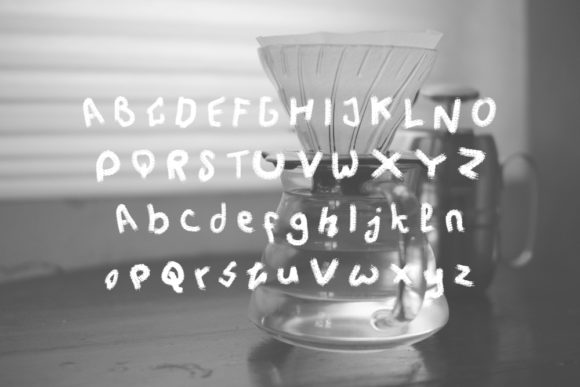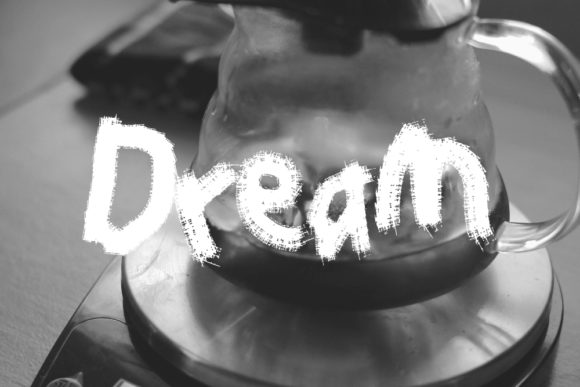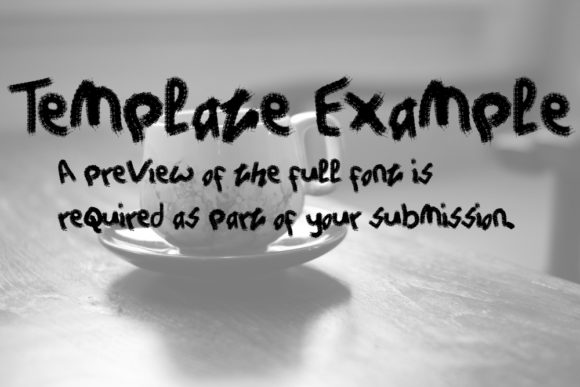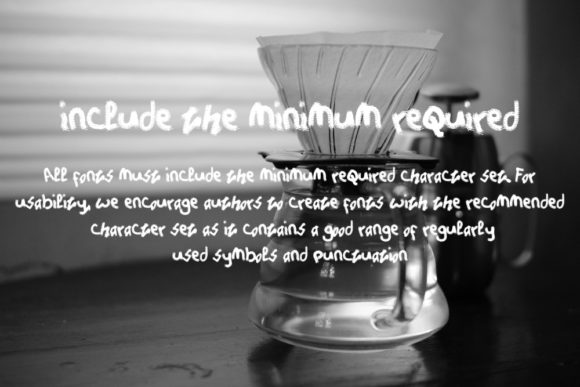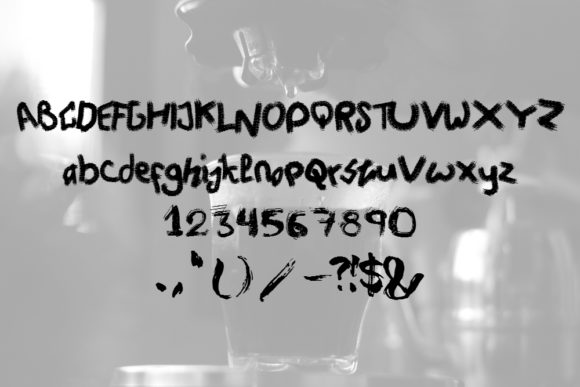
Introducing Cross Hat Font: The Perfect Blend of Brush Pen and Pencil
Are you tired of using the same old fonts for your DIY projects? Look no further! Cross Hat Font is here to revolutionize the way you approach design. This stunning font is the result of a beautiful pairing of a brush pen and pencil, making it look incredibly endearing and authentic. In this article, we’ll dive into the world of Cross Hat Font and explore how it can bring your DIY projects to life.
The Story Behind Cross Hat Font
Cross Hat Font is a unique display font that is handcrafted using a combination of brush pen and pencil. The result is a font that exudes a sense of warmth and personality, making it perfect for DIY projects, crafts, and other creative endeavors. The font’s creator aimed to capture the imperfections and charm of hand-drawn lettering, and the end result is a font that is both beautiful and authentic.
What Makes Cross Hat Font So Special?
So, what sets Cross Hat Font apart from other fonts out there? Here are a few reasons why this font is a game-changer:
- Unique Blend of Tools: The use of both a brush pen and pencil gives Cross Hat Font a distinct look that is hard to replicate with digital fonts alone.
- Handcrafted with Love: Each letter is carefully crafted to ensure that the font has a personal touch.
- Perfect for DIY Projects: Cross Hat Font is designed to bring a touch of handmade charm to your DIY projects, making them stand out from the crowd.
- Versatile: This font can be used for a wide range of projects, from crafting and scrapbooking to branding and packaging.
How to Use Cross Hat Font in Your DIY Projects
Now that you’re excited about Cross Hat Font, let’s talk about how to use it in your DIY projects. Here are a few ideas to get you started:
- Scrapbooking: Add a personal touch to your scrapbook pages with Cross Hat Font. Use it to title your pages, label photos, or create captions.
- Crafting: Whether you’re making cards, gift tags, or DIY decorations, Cross Hat Font is the perfect choice.
- Branding and Packaging: If you’re a small business owner or entrepreneur, use Cross Hat Font to add a touch of personality to your branding and packaging.
Tips for Getting the Most Out of Cross Hat Font
To ensure that you get the most out of Cross Hat Font, here are a few tips to keep in mind:
- Experiment with Colors: Cross Hat Font looks great in a variety of colors, so don’t be afraid to experiment and find the perfect hue for your project.
- Play with Sizes: This font looks great in both large and small sizes, so try it out in different sizes to see what works best for your project.
- Combine with Other Fonts: Cross Hat Font pairs well with other fonts, so try combining it with a sans-serif font for added contrast.
In conclusion, Cross Hat Font is a unique and beautiful display font that is perfect for DIY projects, crafts, and other creative endeavors. Its stunning pairing of brush pen and pencil makes it look incredibly endearing and authentic. With its versatility, handcrafted charm, and imperfections, Cross Hat Font is sure to bring a touch of personality to your projects. So why wait? Download Cross Hat Font today and start bringing your DIY projects to life!